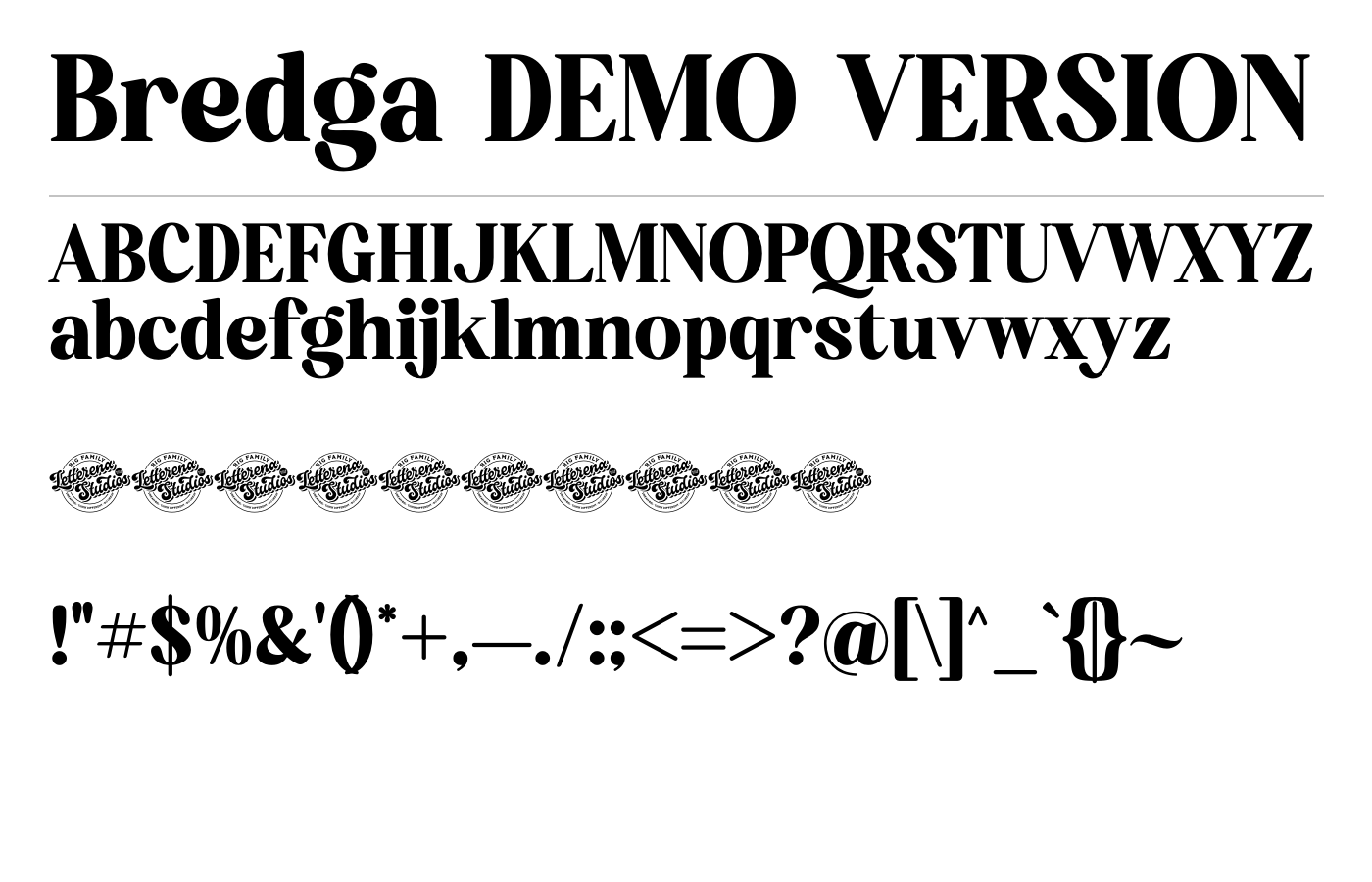
Bredga DEMO VERSION is a bold serif font with a strong classic personality, featuring high contrast between thick and thin strokes and elegant bracketed serifs. Its distinctive letterforms, including double-story 'a' and 'g,' and unique details like the curved tail of the 'Q,' give it a refined yet approachable feel, making it ideal for sophisticated branding, editorial headlines, and luxury packaging that seek to convey timeless style and confidence.
Bredga DEMO VERSION Font
About Bredga DEMO VERSION Font
| Font family | Bredga DEMO VERSION Font |